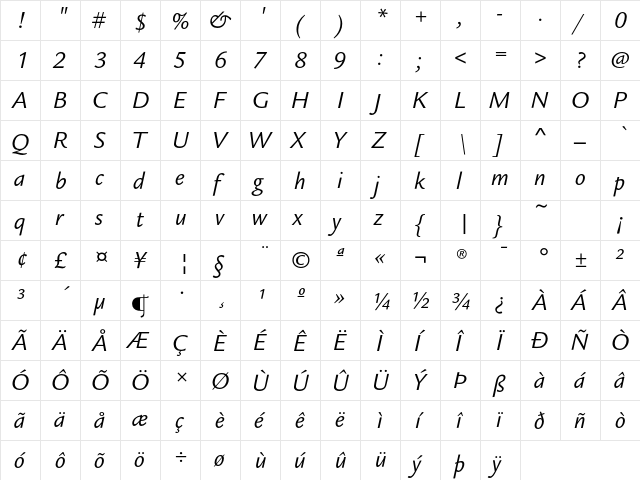
LegacySansEF BookItalic
Design Context for LegacySansEF Typeface
LegacySansEF offers clean, dependable letterforms without strong stylistic allegiance, making it a practical choice for designers who need flexibility. The dynamic lean of this cut emphasises speed and emphasis in any layout.
Pro Tip: Use LegacySansEF for emphasis, pull quotes, and subheadings where its slanted energy can add rhythm to the layout.